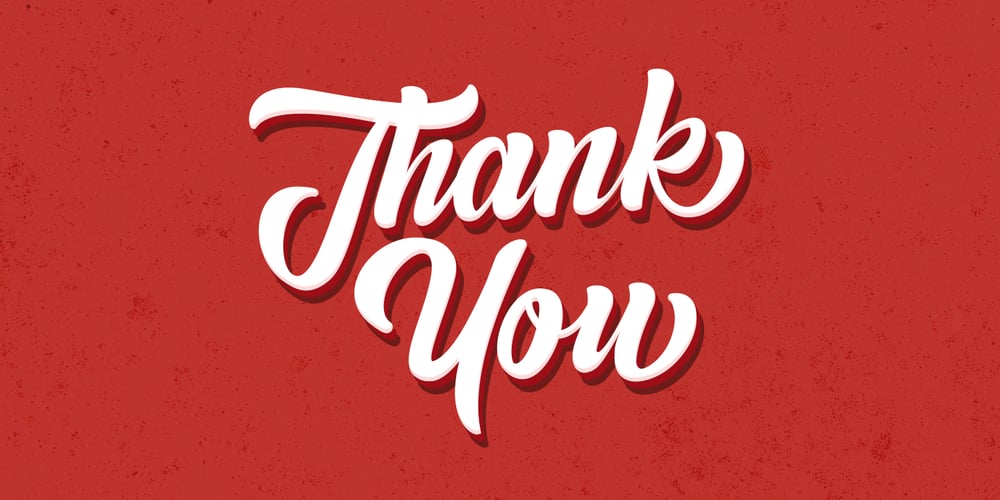
Anordighos Font Family was designed by Arif Dwi and published by Kotak Kuning Studio. Anordighos contains 1 styles and family package options. Introducing my new font Anordighos, a casual script font to give your design a more personal touch and makes the font looks being customized. This font is suitable to use for logotypes, product design, labels, watermark, social media posts, apparel, invitations, signboards, sport club, motor/car, special events or anything that need handwriting feeling. What you get: – Anordighos includes capital and lowercase letters, Alternates, and Ligatures – Numbers + punctuation – Foreign language support I highly recommend using a program that supports OpenType features and Glyphs panels such as Adobe Illustrator, Adobe Photoshop CC, Adobe InDesign, or CorelDraw, so you can see and access all Glyph variations. Anordighos is encoded with Unicode PUA, which allows full access to all additional characters without having special design software. Mac users can use Font Book, and Windows users can use Character Map to view and copy one of the extra characters to paste into your favorite text editor / application. We hope you enjoy the font, please feel free to comment if you have any thoughts or feedback. Or simply send a PM or email to kotakkuningstudio@gmail.com. Thanks for purchasing and have fun! Note: The shadow effect is not included in the font, it’s only for this presentation purpose.